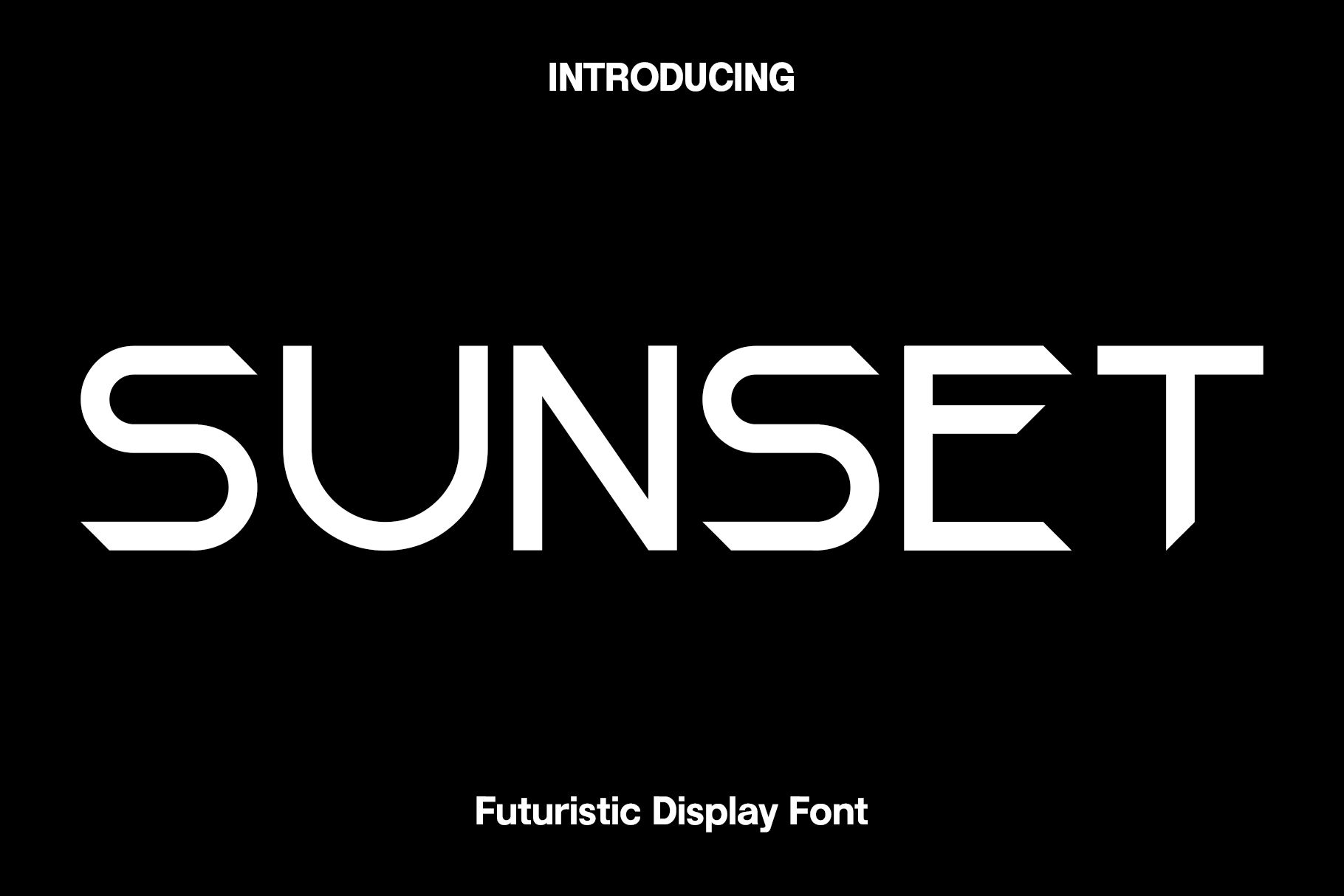
Sunset - Futuristic Display Font
Sunset – Futuristic Sci-Fi Display Font
Sunset is a futuristic display font designed to capture the imagination with its sleek, modern, and space-inspired aesthetic. Influenced by advanced technology, cyberpunk visuals, and futuristic architecture, Sunset features clean geometric letterforms that create a bold and innovative appearance. Every character is carefully crafted to deliver exceptional readability while maintaining a distinctive sci-fi personality, making it an excellent choice for designers who want typography that feels both modern and timeless.
Perfect for branding, logos, technology startups, gaming graphics, movie titles, posters, headlines, user interfaces, digital products, esports, product packaging, YouTube thumbnails, social media content, and creative advertising, Sunset adapts effortlessly to both print and digital media. Its futuristic style adds a powerful visual presence that instantly elevates any project.
Whether you're designing a high-tech brand identity, creating a science fiction poster, developing gaming artwork, or producing modern promotional materials, Sunset provides the versatility and impact needed to make your designs stand out. Its balanced proportions and contemporary structure ensure every headline looks sharp, professional, and memorable.
With its clean futuristic style and premium craftsmanship, Sunset transforms ordinary text into bold visual statements inspired by tomorrow's world. It is an essential display font for designers seeking modern, innovative typography that combines creativity, precision, and futuristic elegance.
Sunset Font Features:
• Futuristic sci-fi display style
• Clean geometric letterforms
• Strong modern typography for impactful headlines
• Uppercase and lowercase characters
• Numbers and punctuation
• Perfect for logos, branding, gaming, technology, movie titles, posters, headlines, packaging, and digital media
• Suitable for both print and digital projects